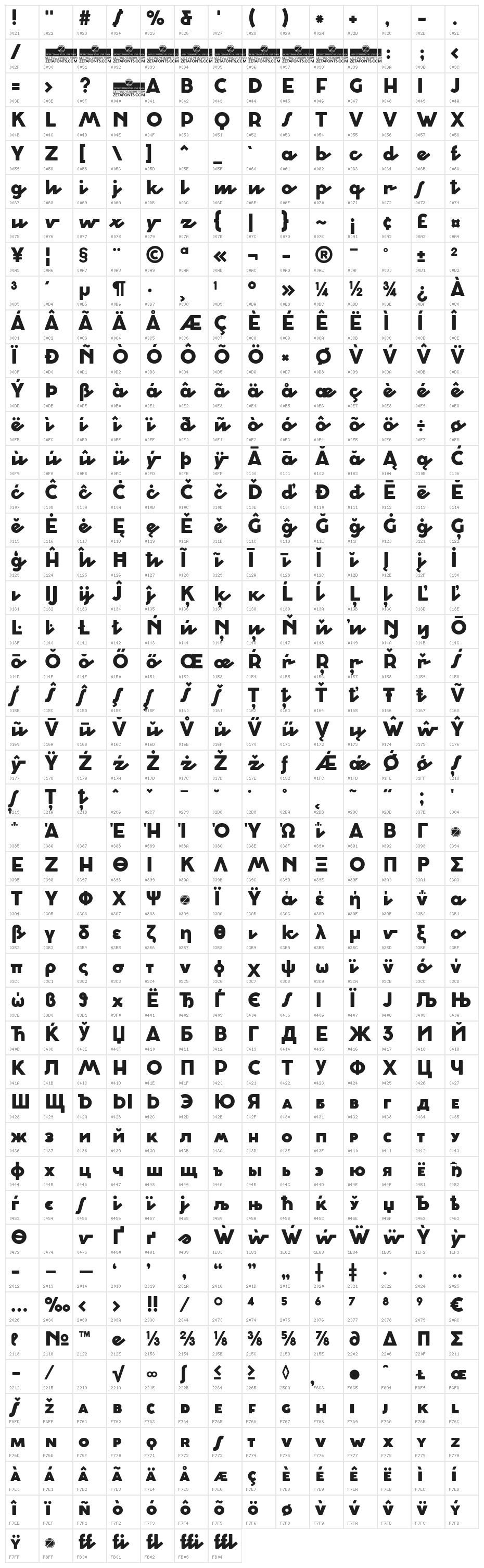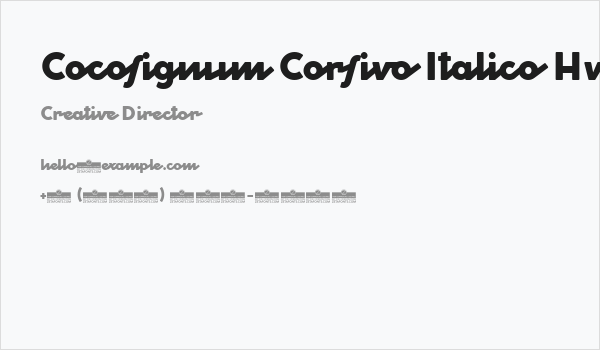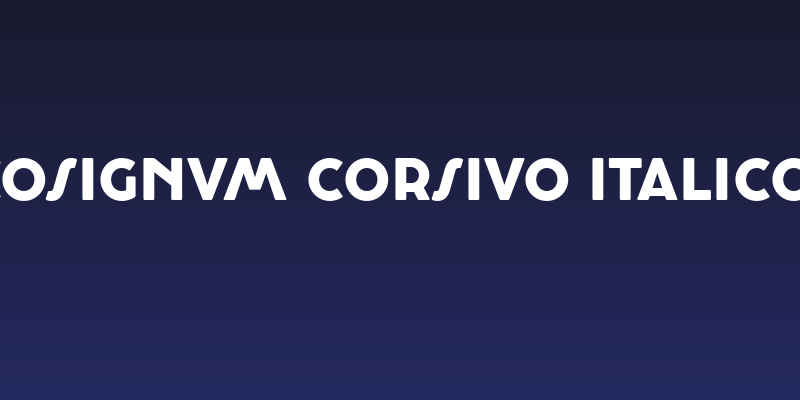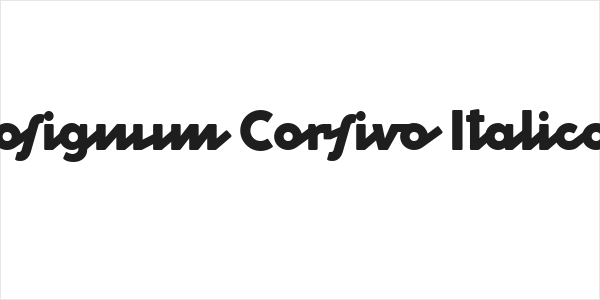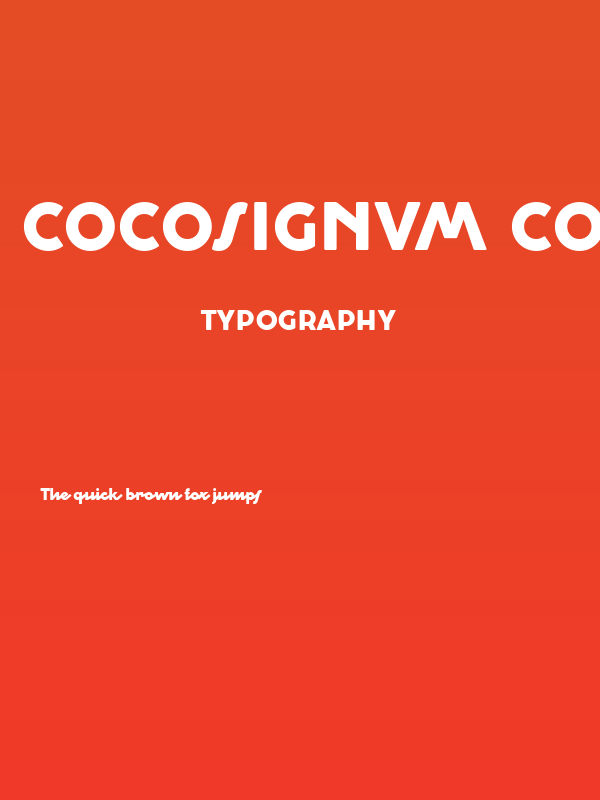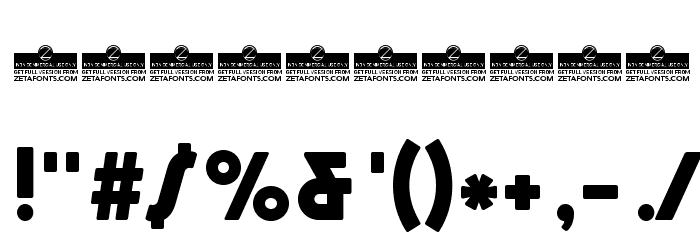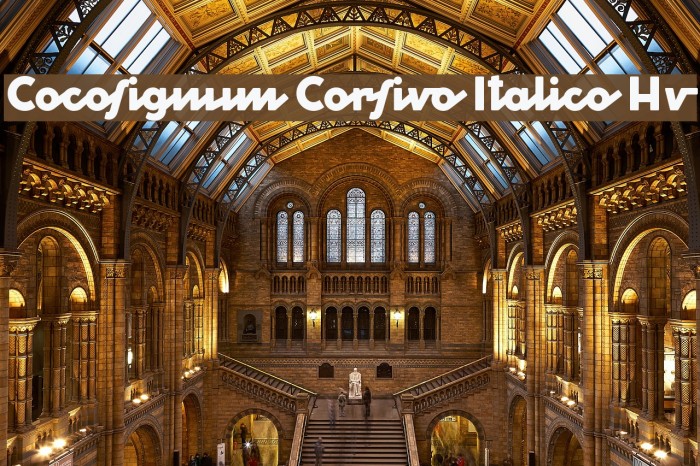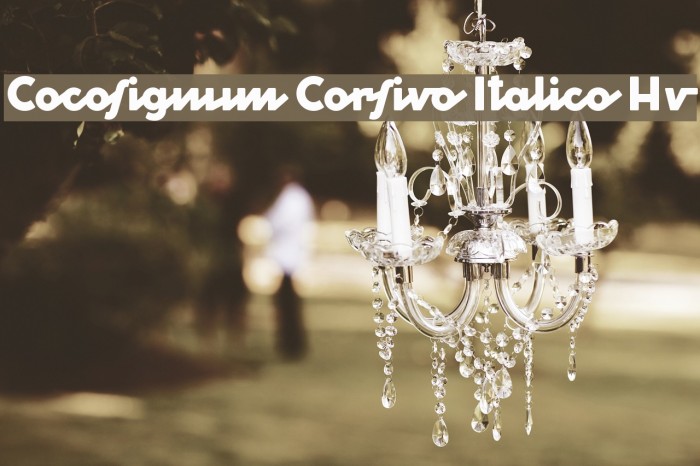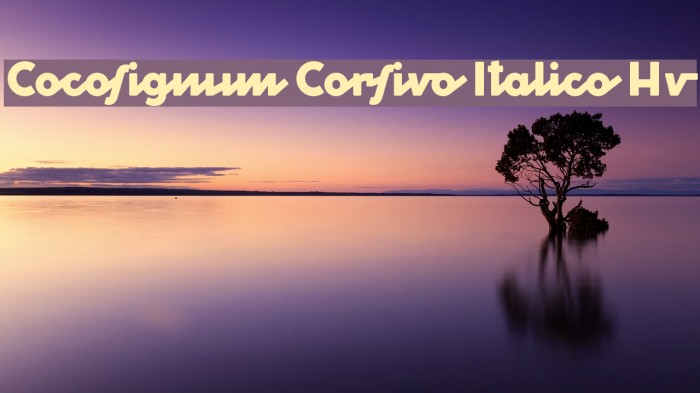
Cocosignum Corsivo Italico Hv Font
Cocosignum Corsivo Italico Hv Description
This font features a bold and dynamic style with a distinct italic slant, giving it a sense of motion and energy. The uppercase letters are strong and assertive, while the lowercase letters maintain a cohesive flow with their connected strokes. The numerals and special characters are designed to match the boldness and style of the alphabet, ensuring consistency across all text. The overall design is modern and impactful, making it suitable for attention-grabbing headlines and displays. The character spacing is tight, enhancing the compact and bold appearance of the text. The contrast in stroke thickness is medium, providing a balanced look that is both legible and visually appealing.
| Proposed Projects | Ideal for branding, advertising, posters, and any project requiring a strong visual impact. |